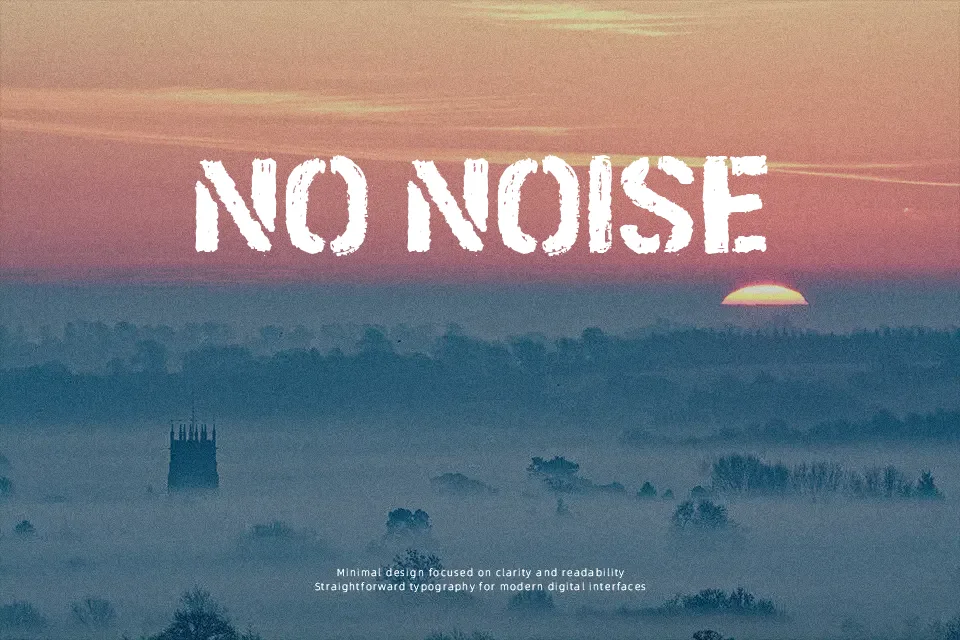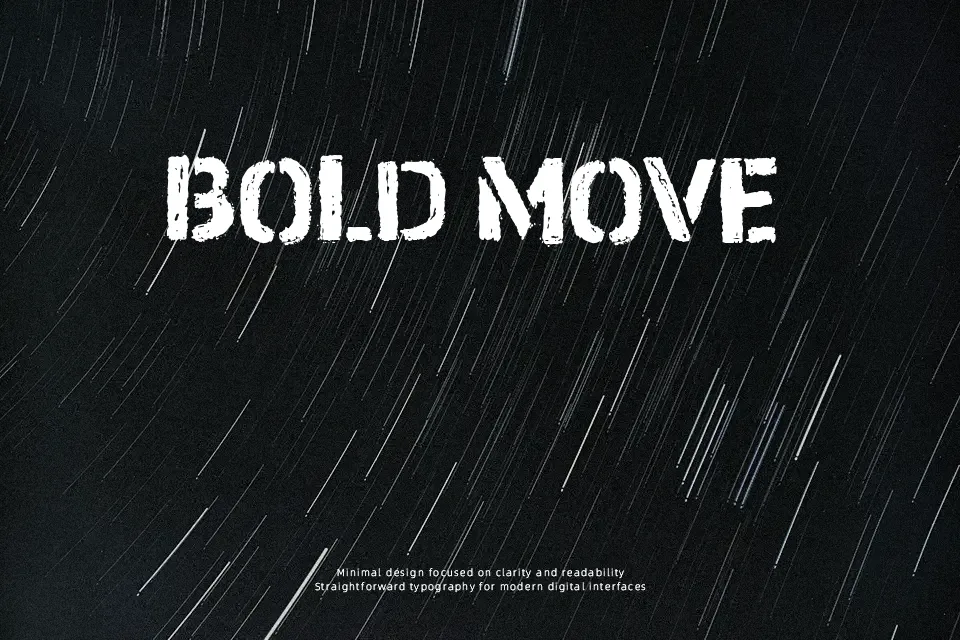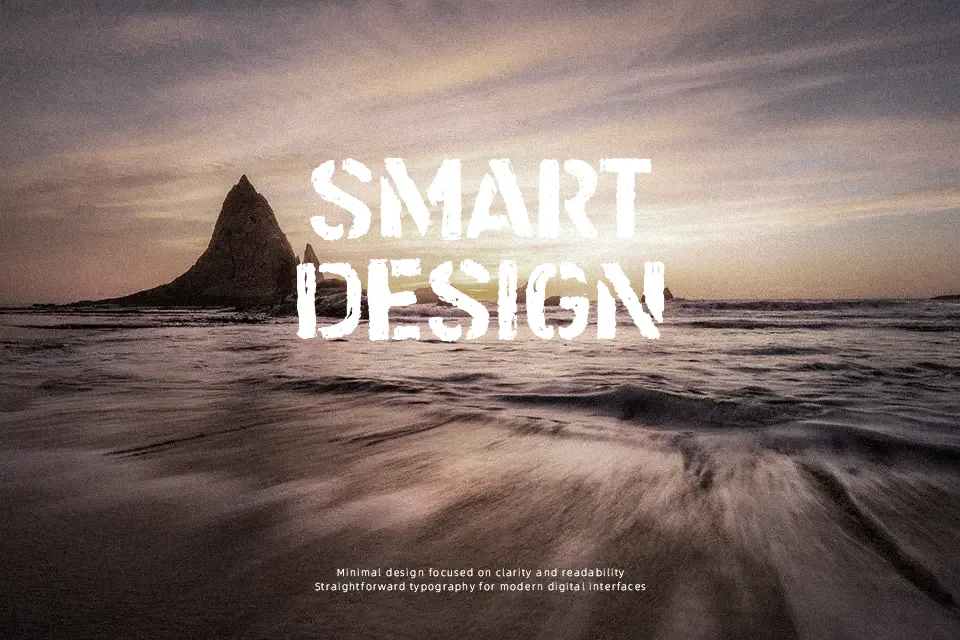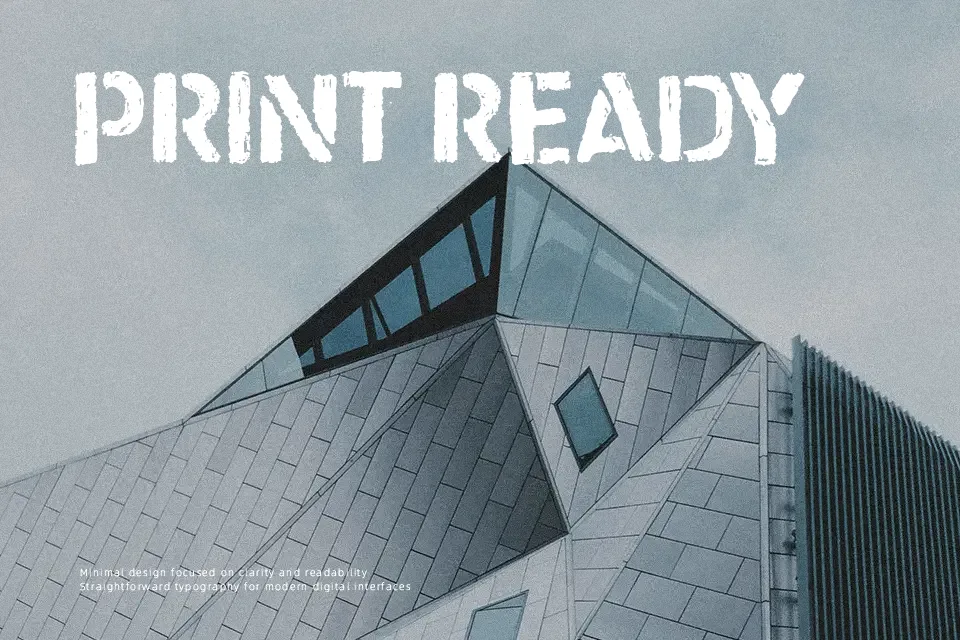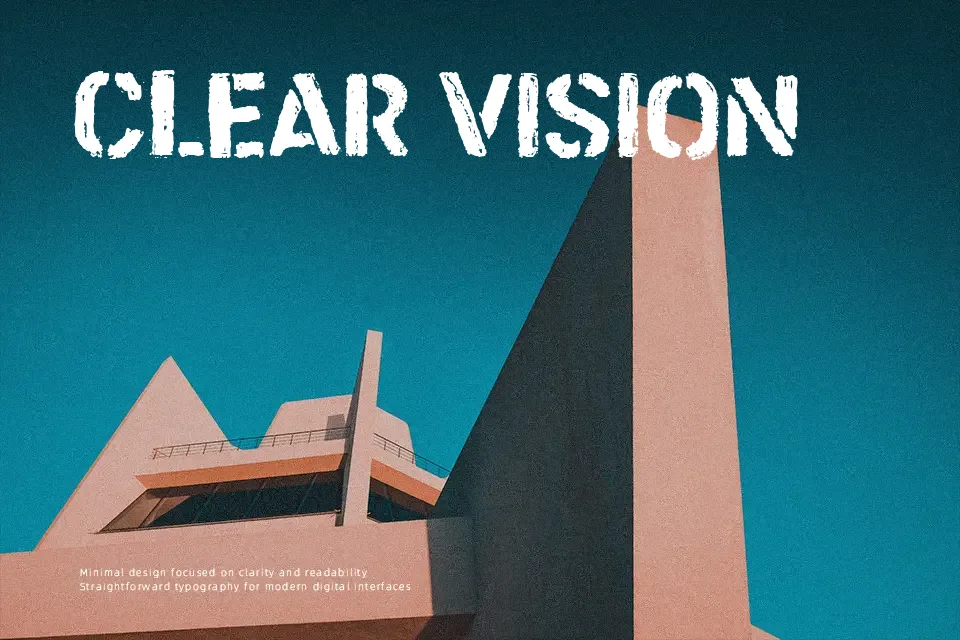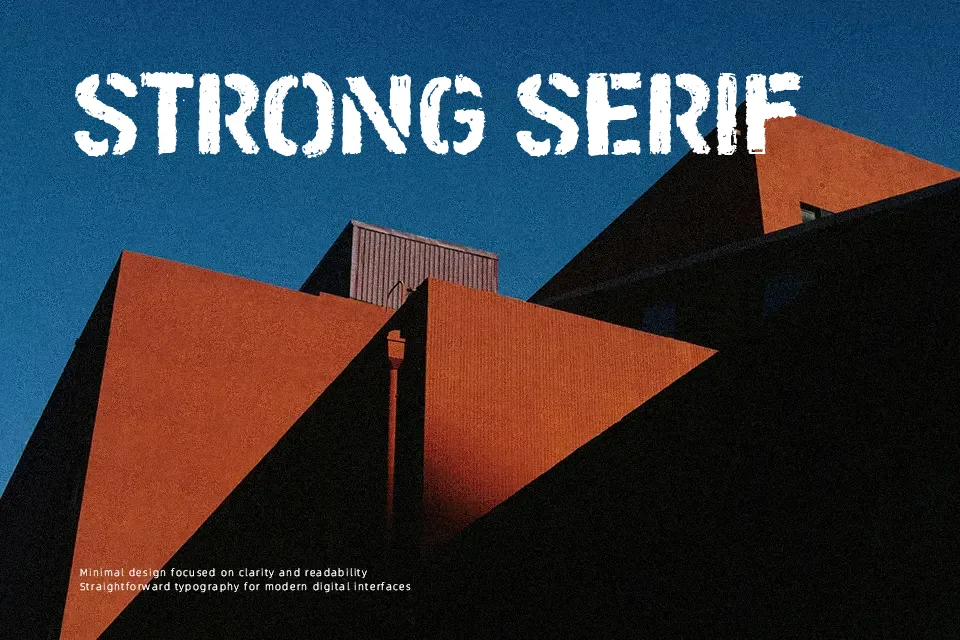
CF Trash Zone Font
CF Trash Zone Font captures an intense industrial aesthetic defined by heavy distressed strokes and structured stencil bridges. The letterforms display solid blocky proportions, creating an imposing presence across large headlines. Tight character spacing reinforces the dense, chaotic texture, though it requires generous tracking when set against complex backgrounds. While glyph readability remains sharp in short titles and bold emblems, the rough stencil cutouts become illegible in continuous body text or reduced caption sizes. This design functions best when given ample space in poster layouts, where the textured letterforms provide substantial visual impact without sacrificing core character recognition.
Best For: music festival posters,action game titles,military model packaging,apparel graphics
Not Ideal For: continuous body text,technical documentation,small mobile interface labels,editorial paragraphs
Perfect for gaming, headline, and music, with a bold and decorative style.